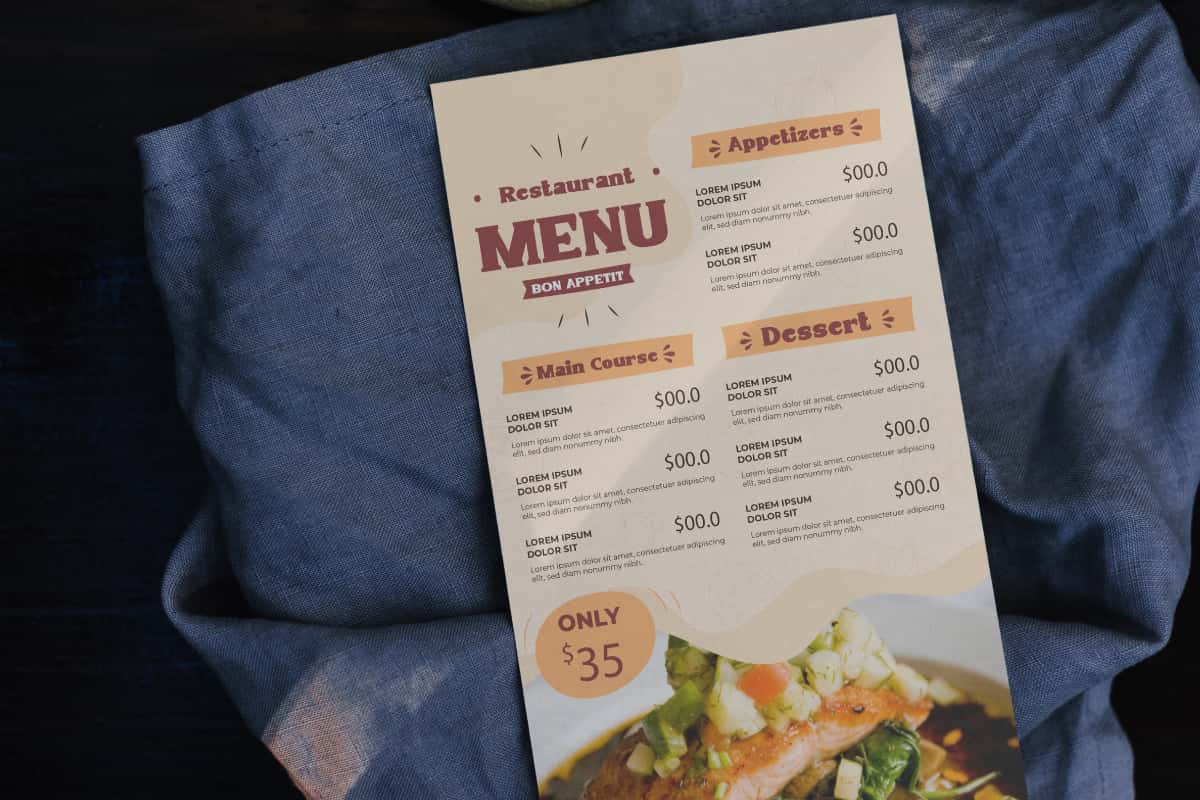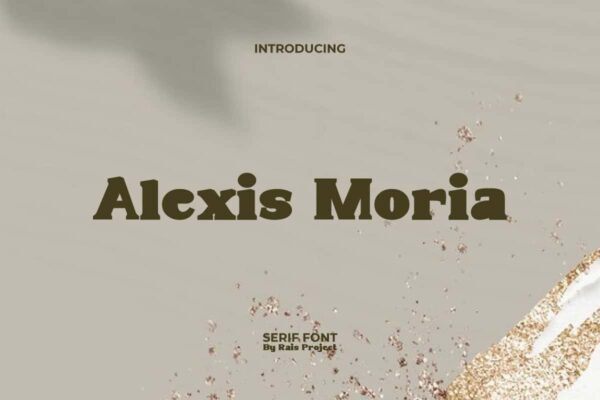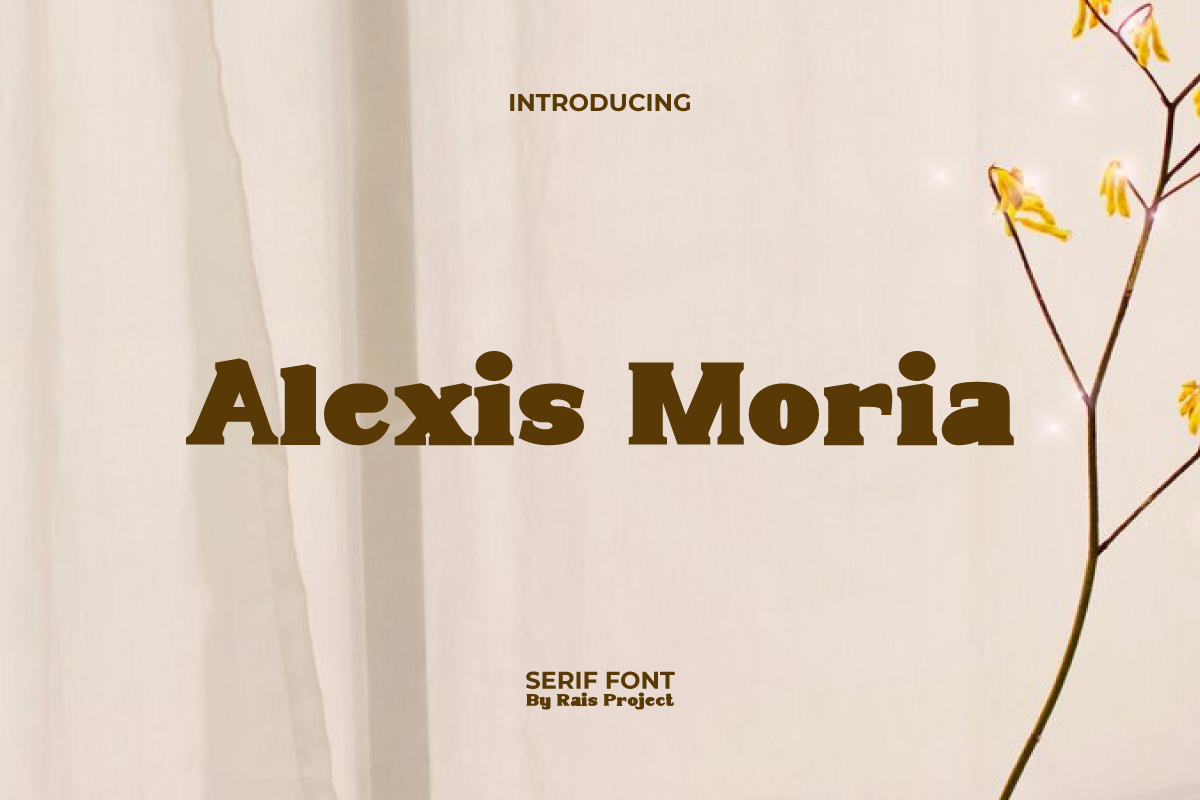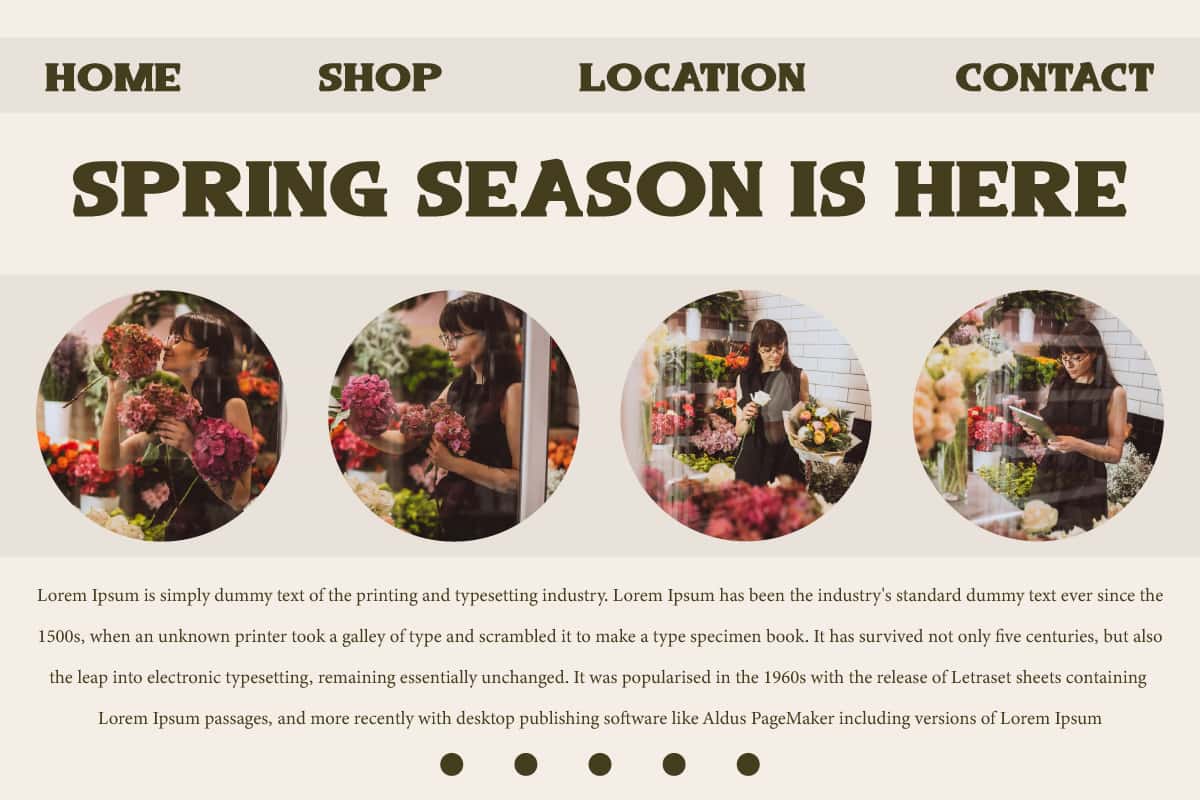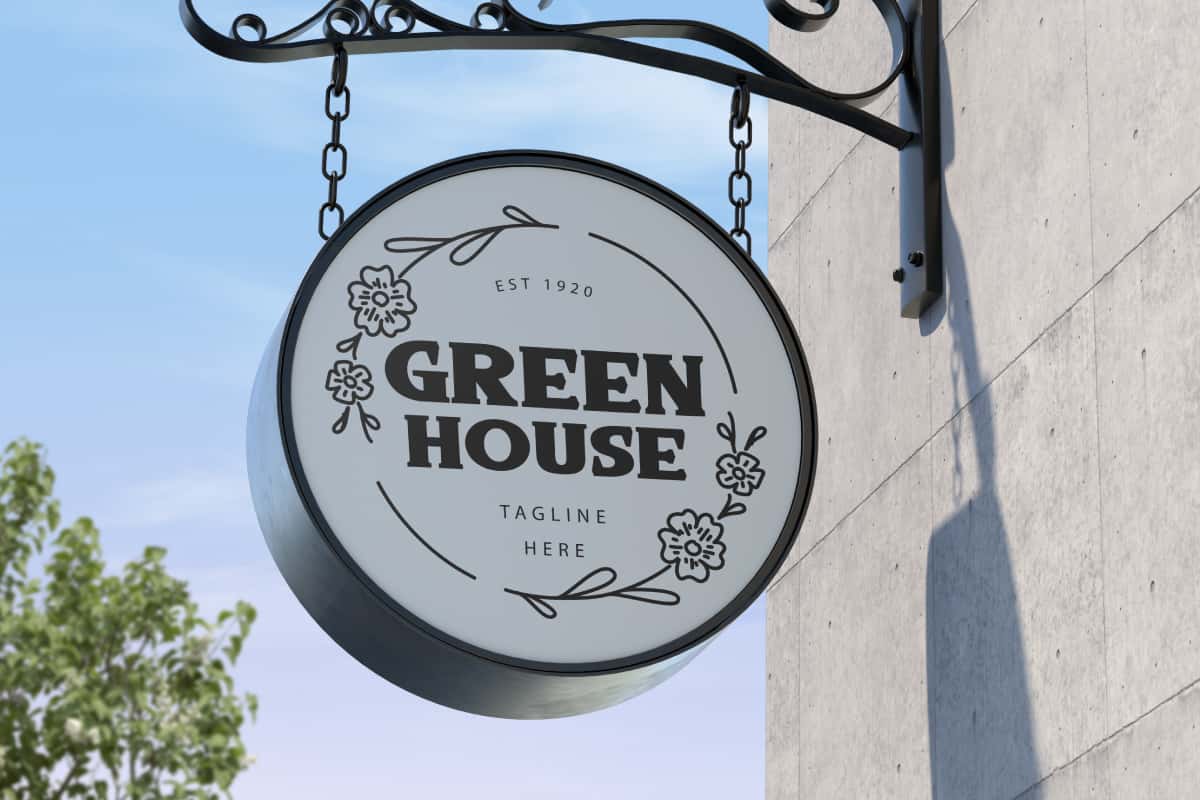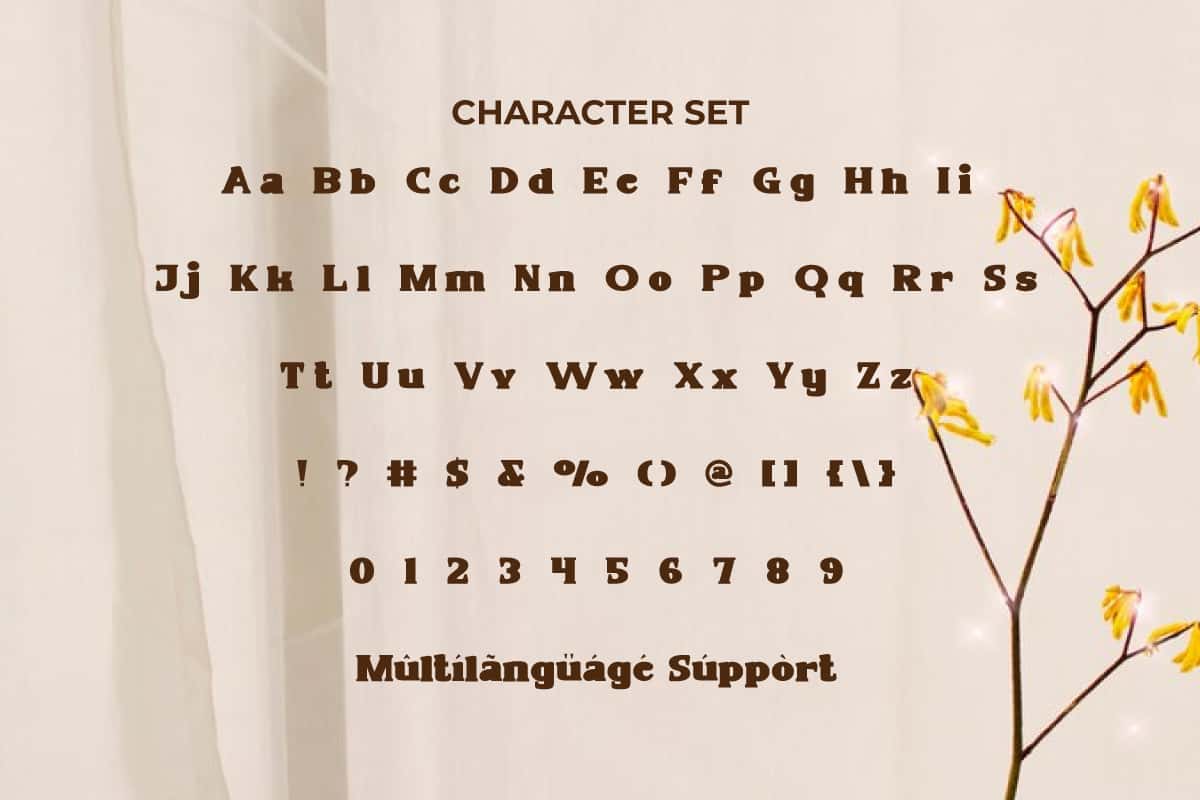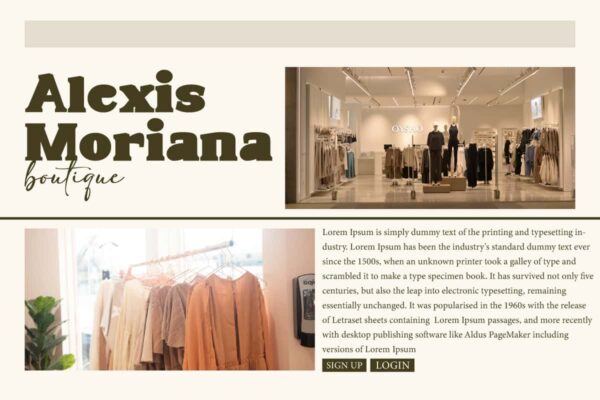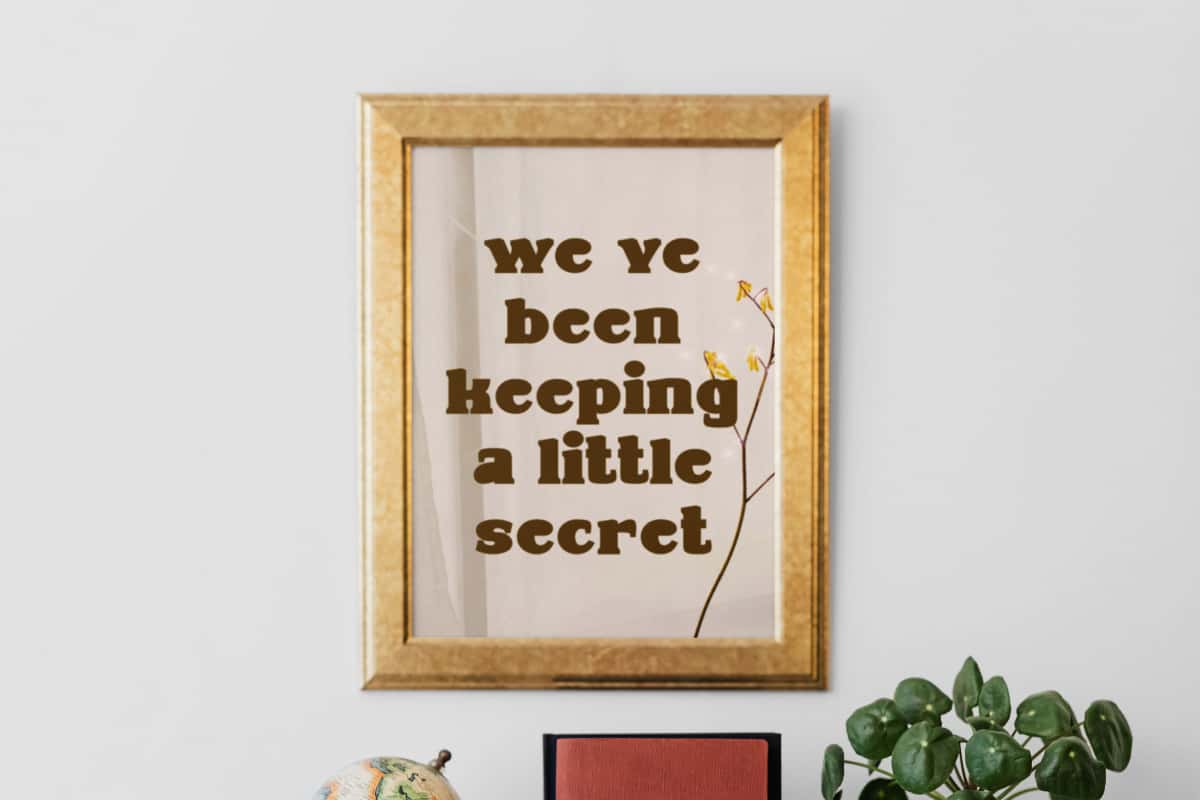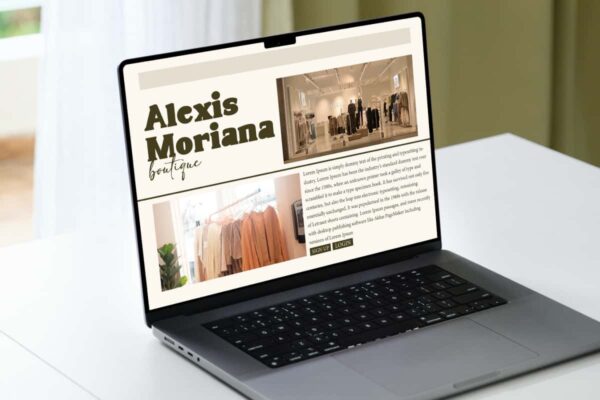
Alexis Moria Display Font
Alexis Moria Font is a pretty stylish yet sophisticated serif display font in vintage looks. Try adding this font to make your design even more stunning!
Alexis Moria Font is a pretty stylish yet sophisticated serif display font in vintage looks. This font has a distinctive character that can add an attractive modern aesthetic to your design. It will look good on invitation, stationery, poster, custom design, product packaging, quotes, signage, brand image, advertisement, label, marketing material, website page, and more!
Introducing Alexis Moria Display Font – a bold, elegant, and artistic typeface designed to elevate your creative projects with sophistication and style. Featuring refined strokes, modern curves, and a distinctive display design, Alexis Moria is perfect for creating visuals that stand out with both confidence and beauty. From logos and branding to posters, invitations, packaging, and social media graphics, this font brings a timeless charm to every project.
Alexis Moria Display Font blends elegance with versatility. Its stylish letterforms make it an ideal choice for fashion branding, wedding stationery, lifestyle blogs, or editorial layouts that require a strong yet graceful look. Whether you’re creating bold headlines, chic marketing materials, or classy merchandise, Alexis Moria ensures your designs leave a lasting impression.
Alexis Moria Display Font includes a full set of ALL CAPS for Uppercase and Lowercase Letters, Numerals, and large range of Punctuation. This stylish font will be suitable for various industries, such as fashion, jewelry, cafe, event or wedding organizer, photography, printing, publishing, etc.